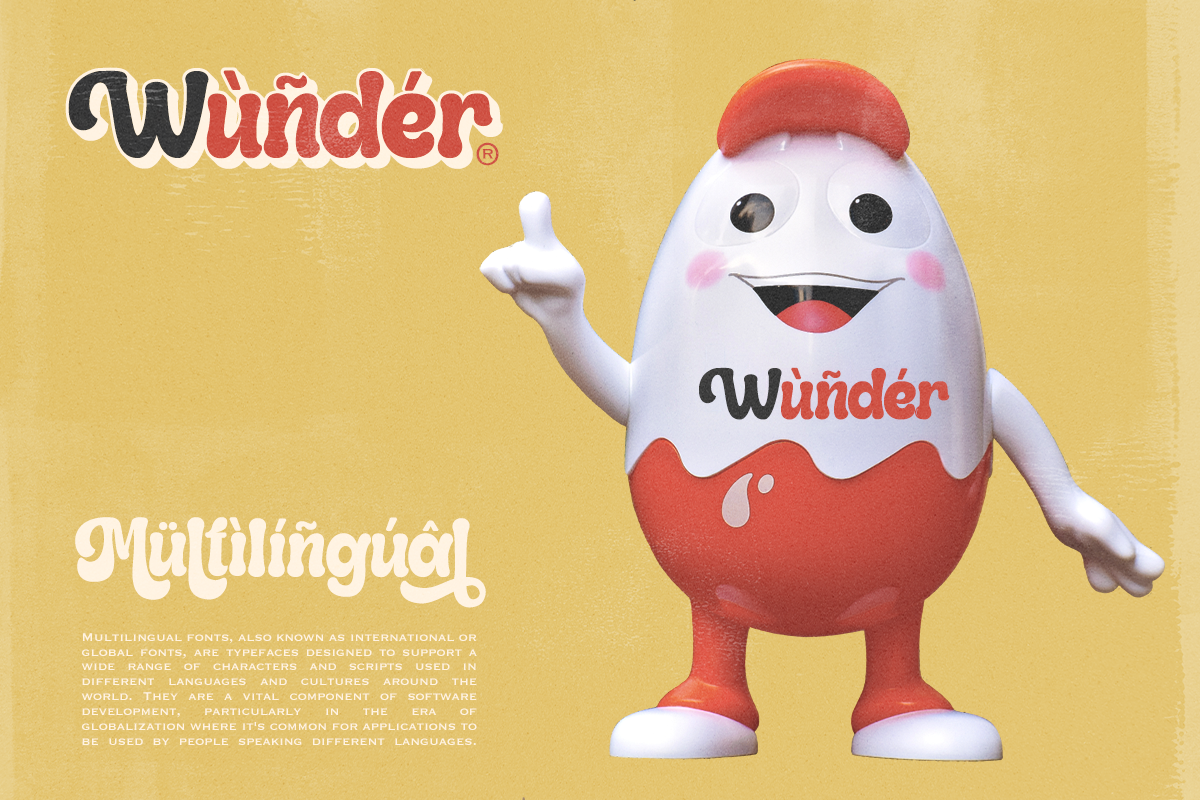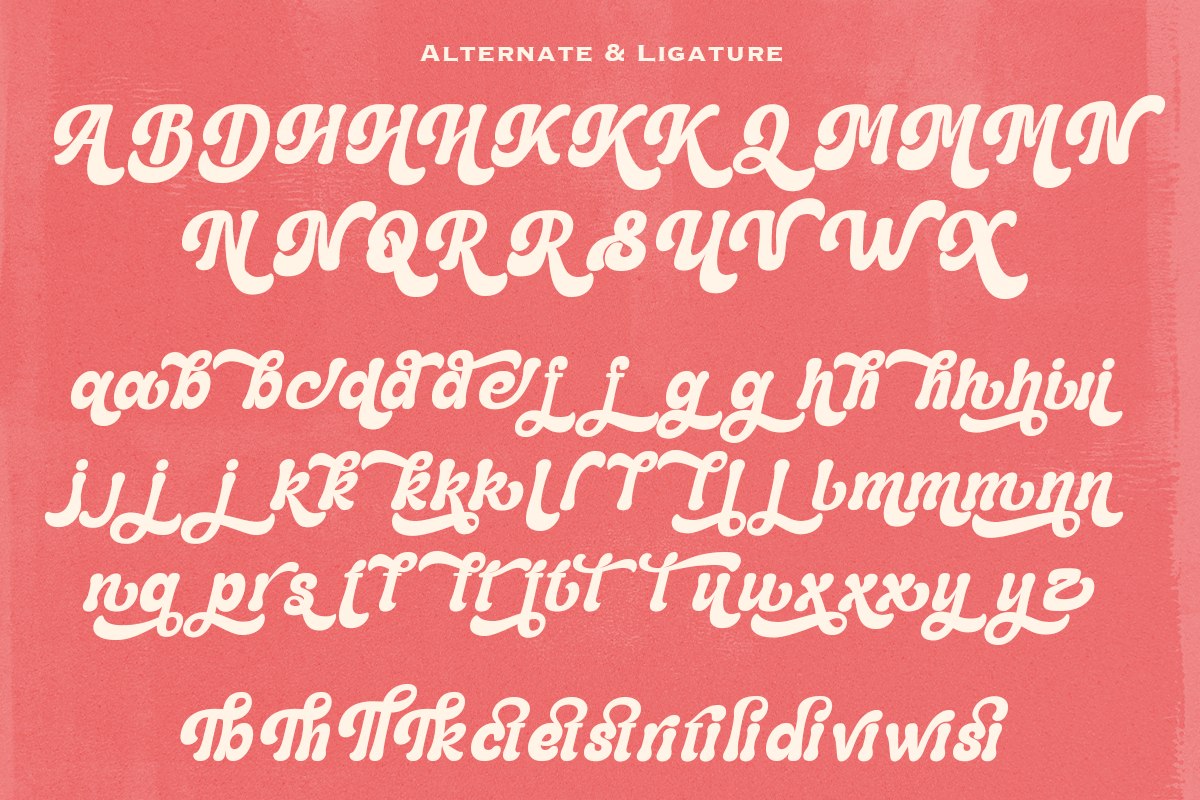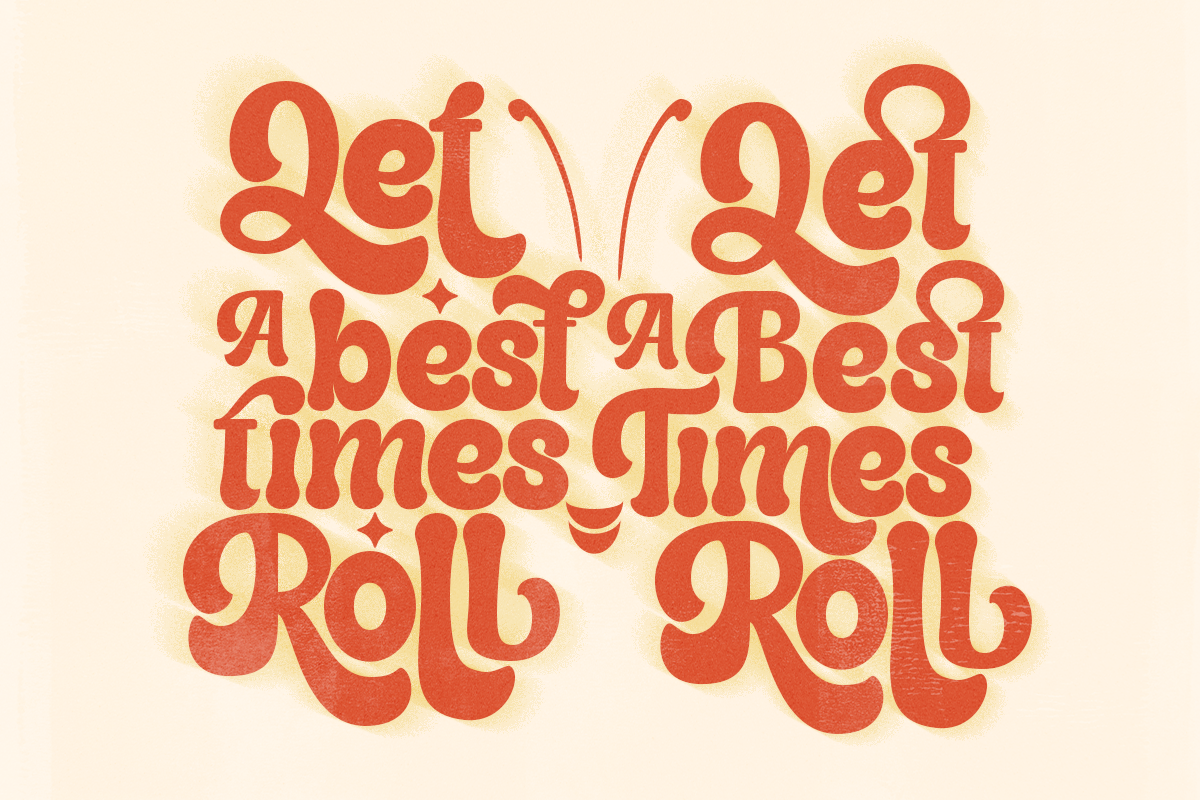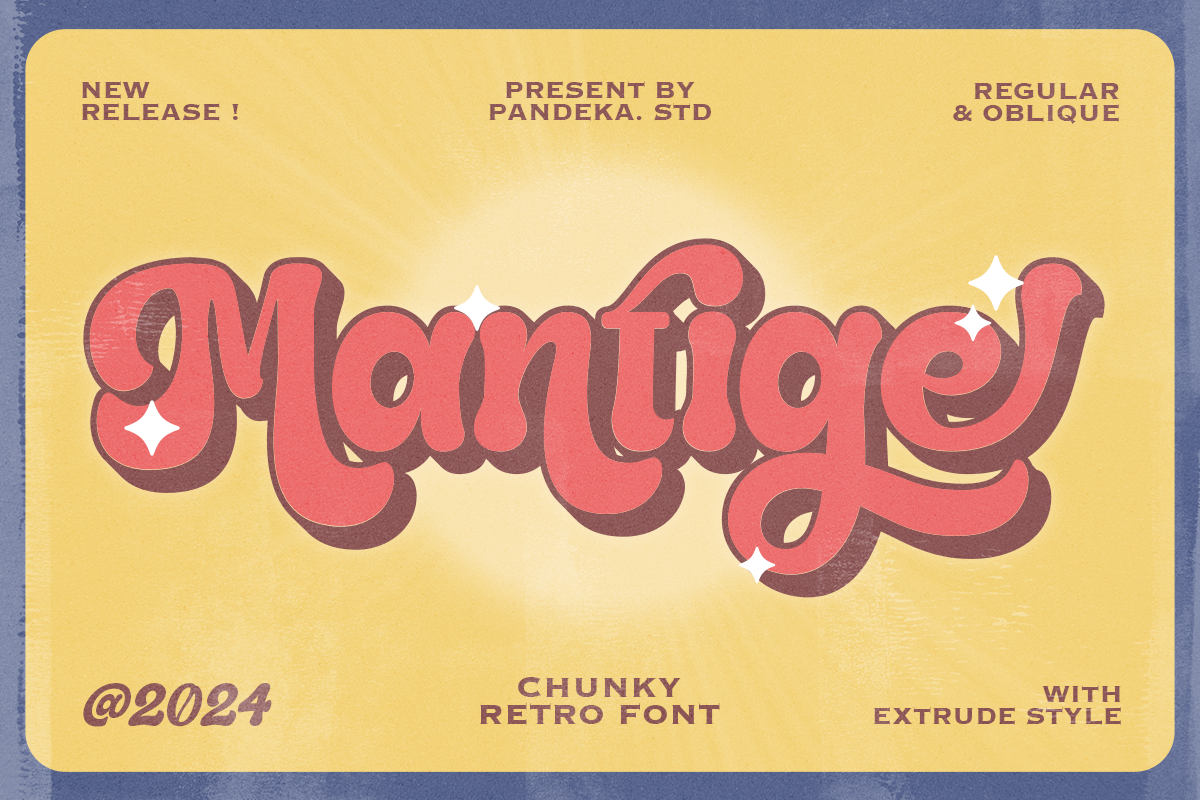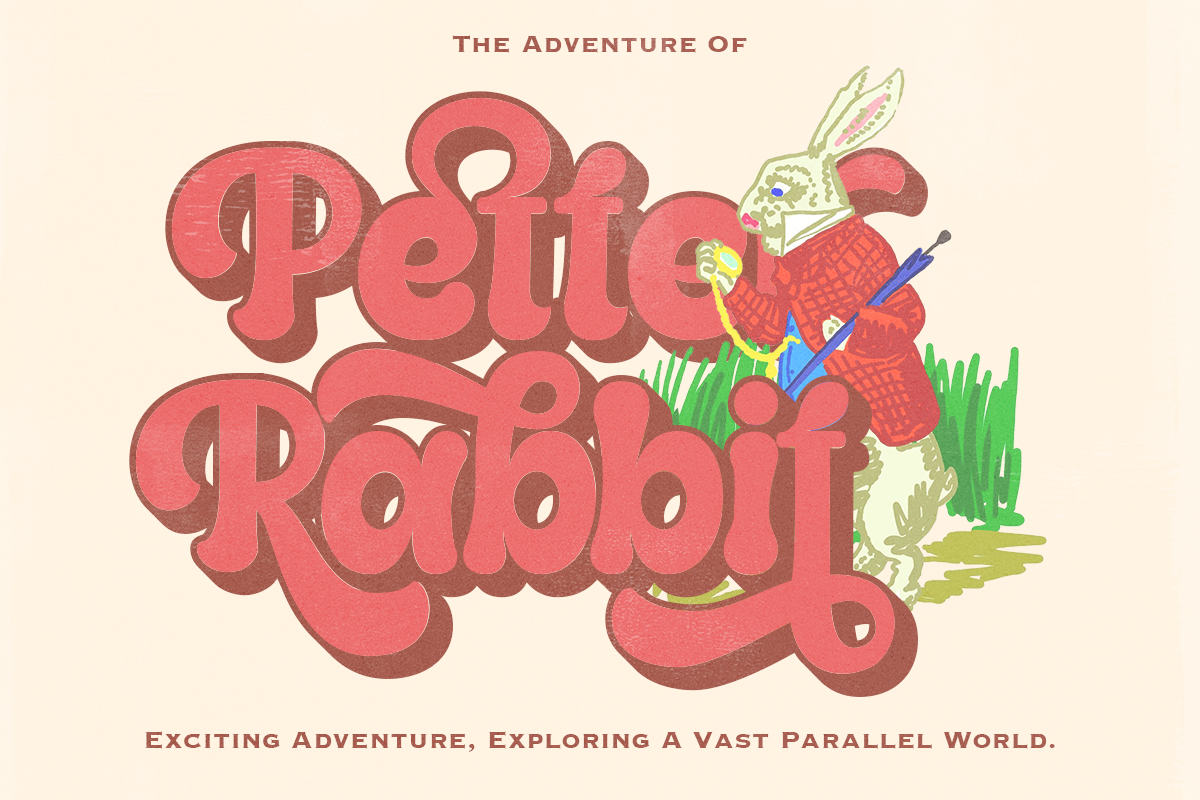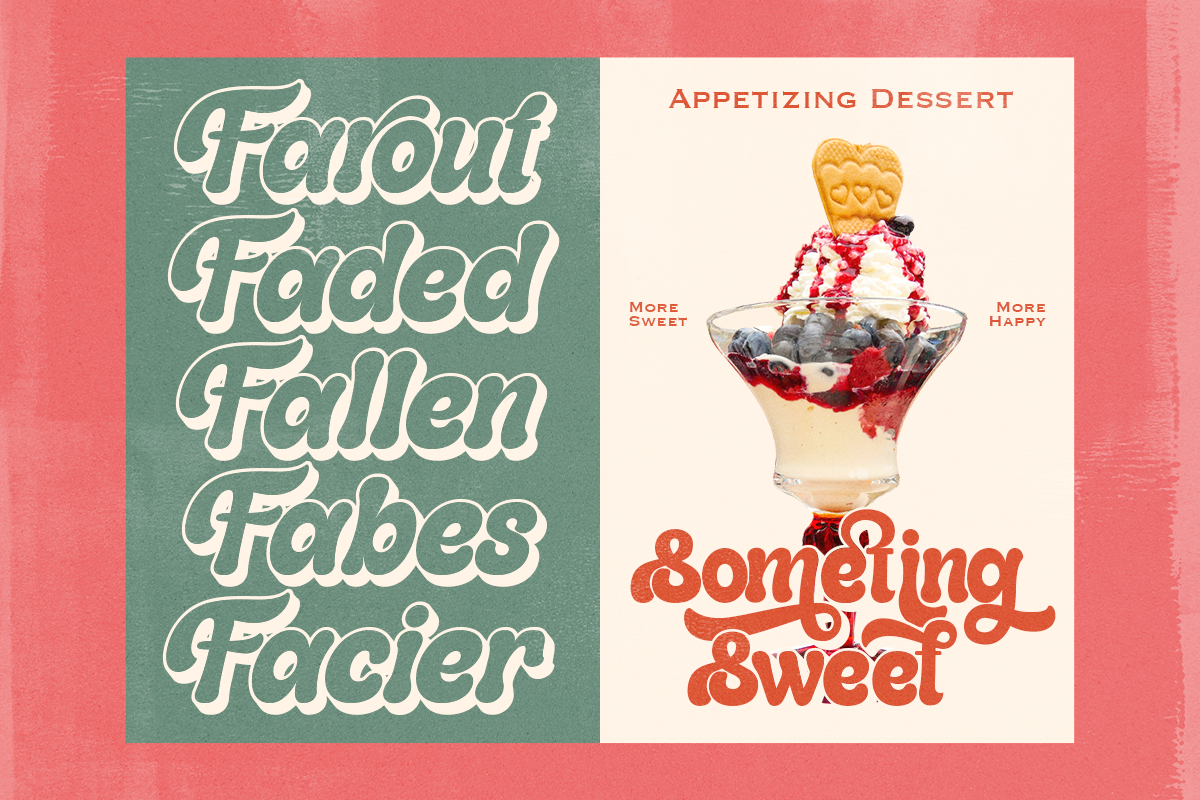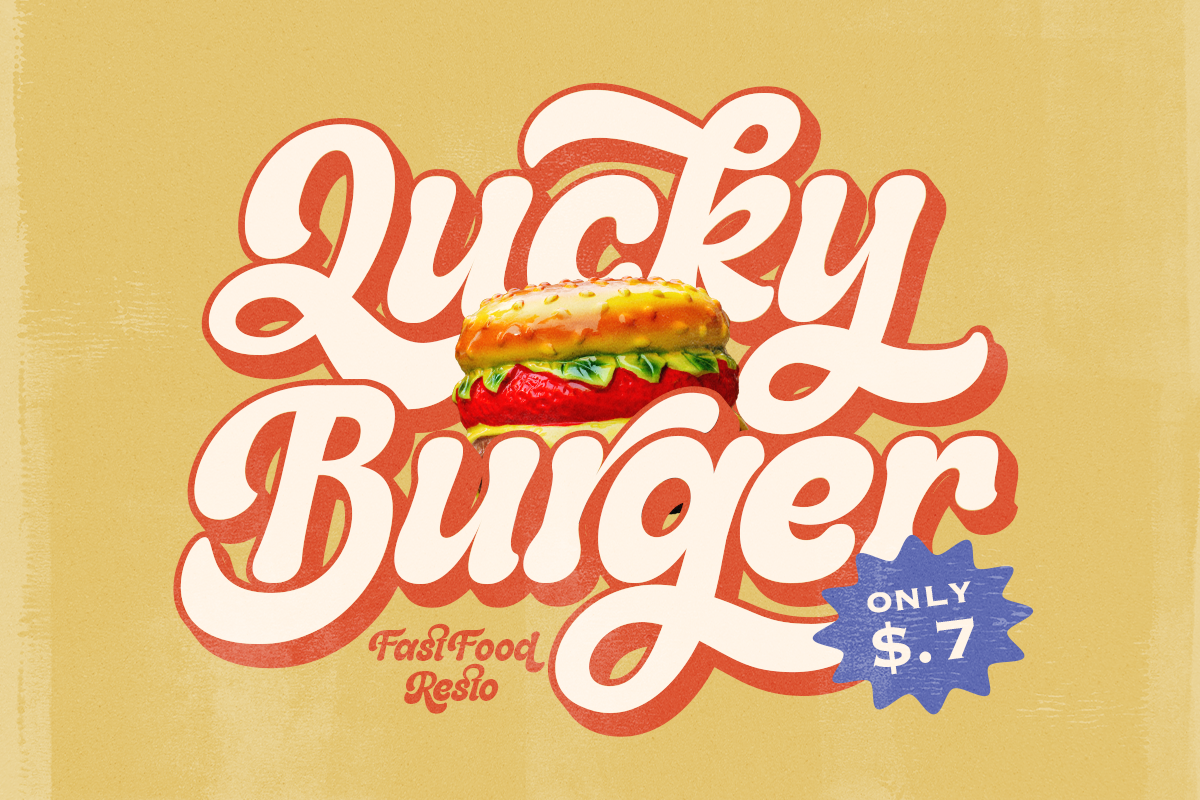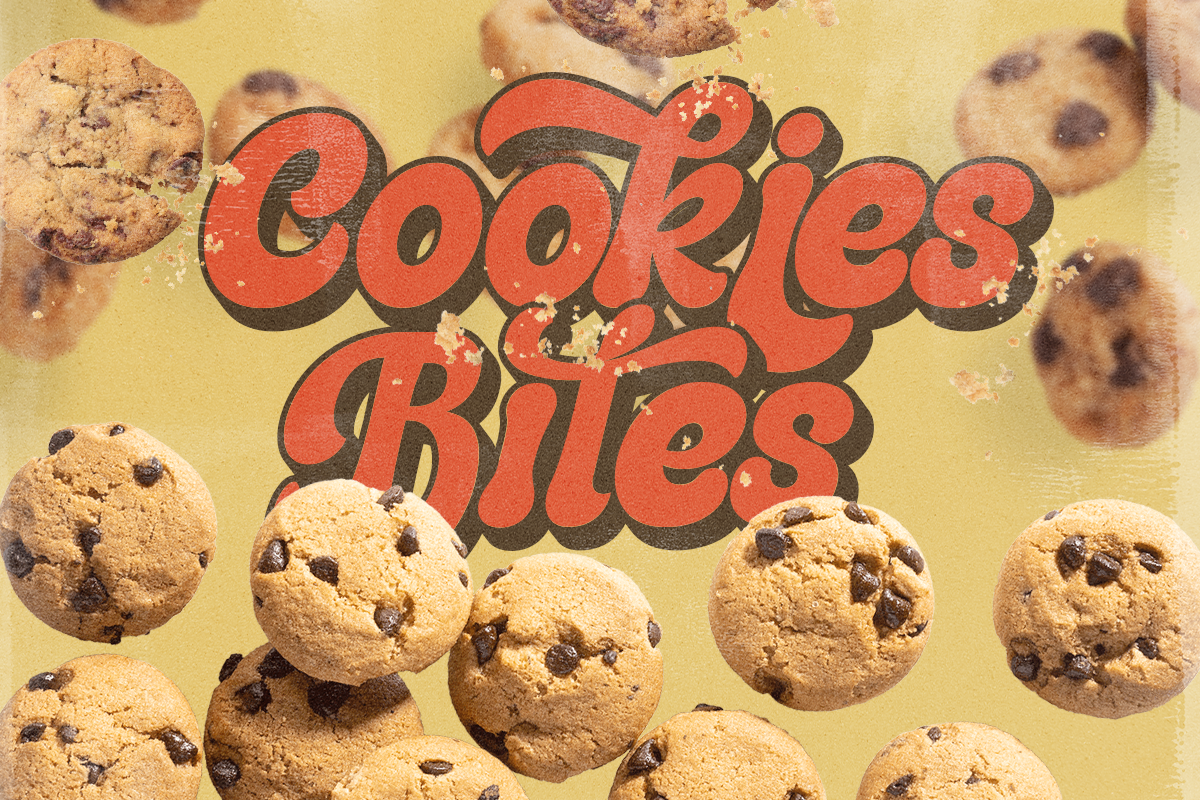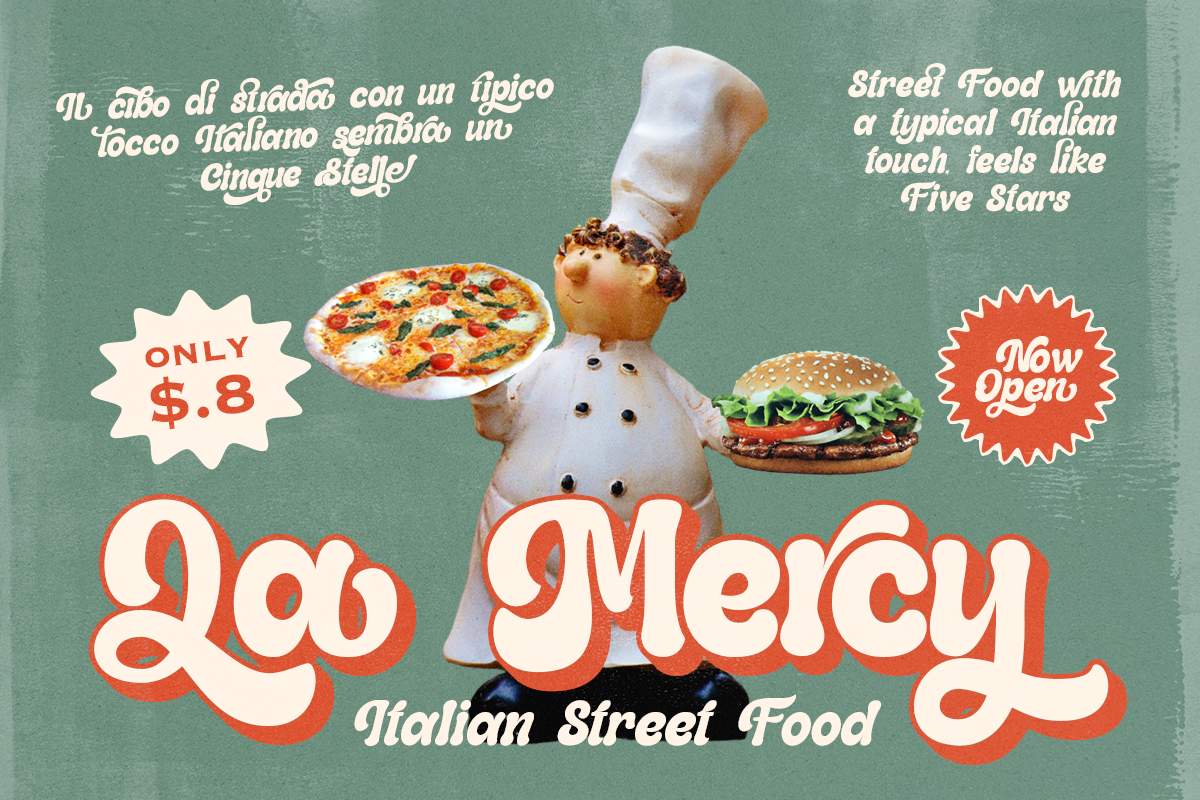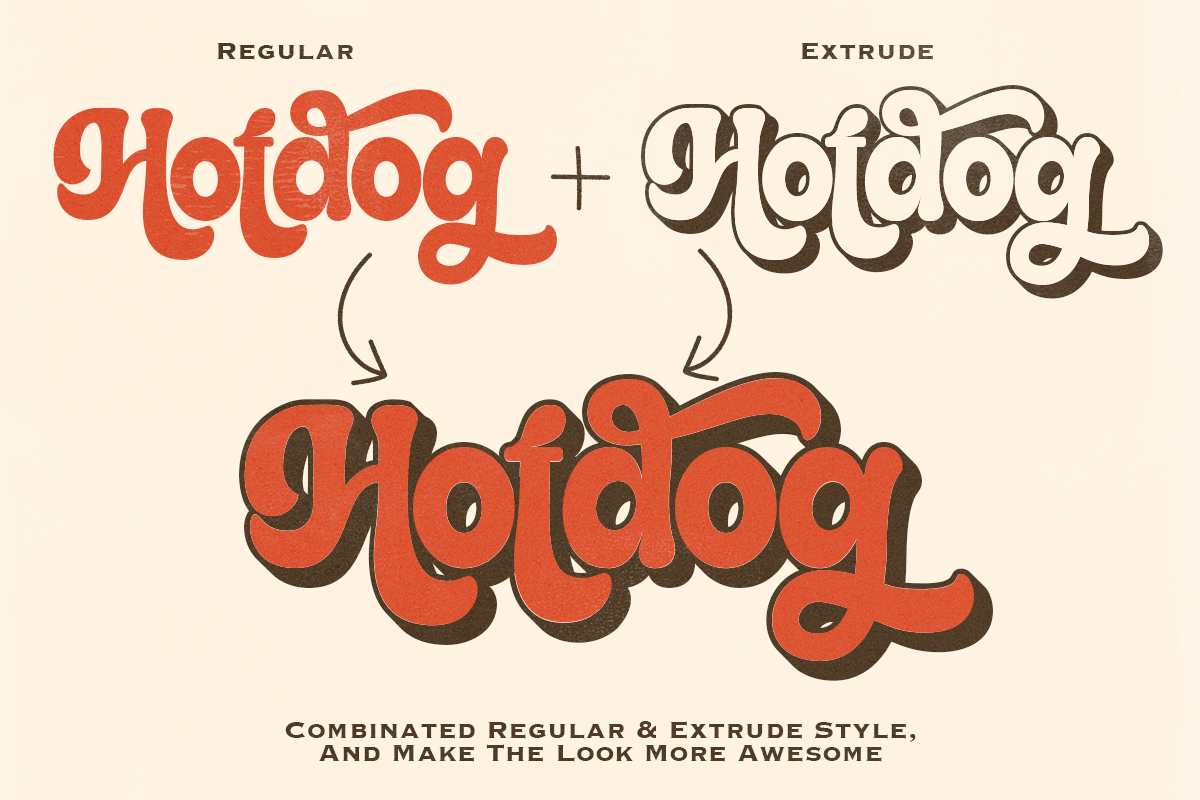
Mantige - Chunky Retro Font
Mantige is an homage to the expressive, soft and rounded old-style serif typefaces from the sixties and seventies. Its gentle and juicy serifs give the typeface the right amount of warmth and nostalgia.
While hinting at the classic Cooper-like style, the reinterpretation features several unconventional letterforms which make both the roman and italic styles remarkably dynamic.
- Regular, Oblique, Extrude Oblique
- Complete Special Alternates and Ligatures